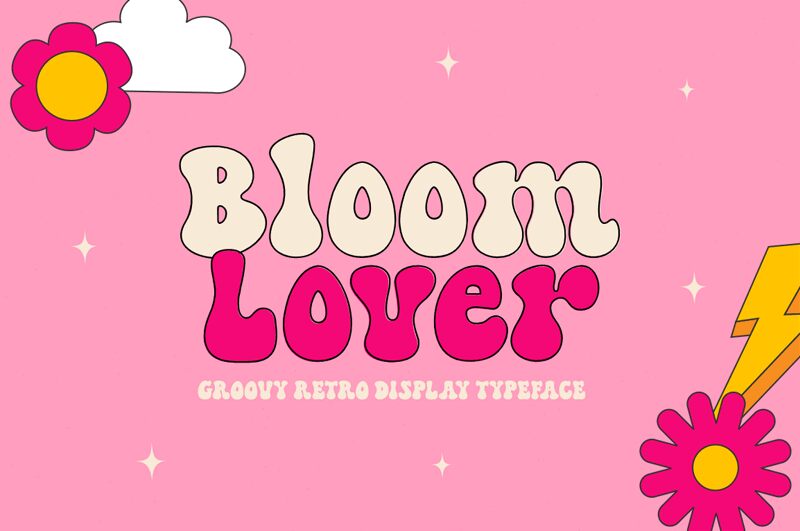
Bloom Lover, crafted by ReyreyBlue, is a retro display font that exudes groovy vibes. Its bold weight adds a touch of confidence to any project.
Perfect for vintage-inspired poster designs, music album covers, or even branding for 70s-themed events, Bloom Lover brings a nostalgic feel to the forefront. Let its whimsical curves and playful letterforms transport you back in time.
Unleash your creativity and infuse your design projects with the essence of the groovy era using Bloom Lover – where boldness meets retro charm.